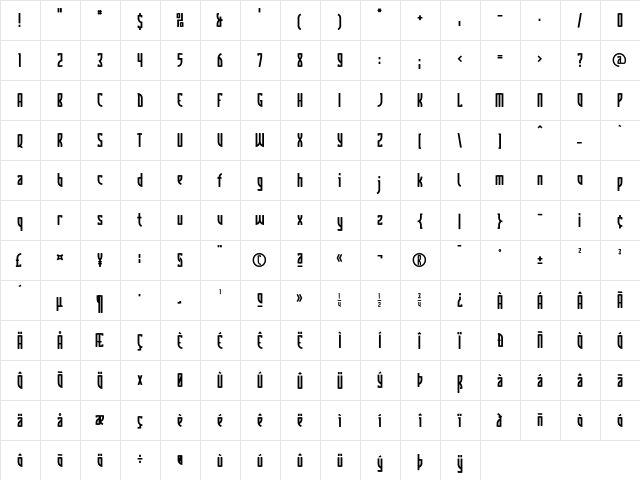
Komunique Bold Font Preview
Komunique Bold
Komunique Bold Font Details
Design Context for Komunique Typeface
Komunique offers clean, dependable letterforms without strong stylistic allegiance, making it a practical choice for designers who need flexibility. The heavy weight commands attention and anchors typographic hierarchies.